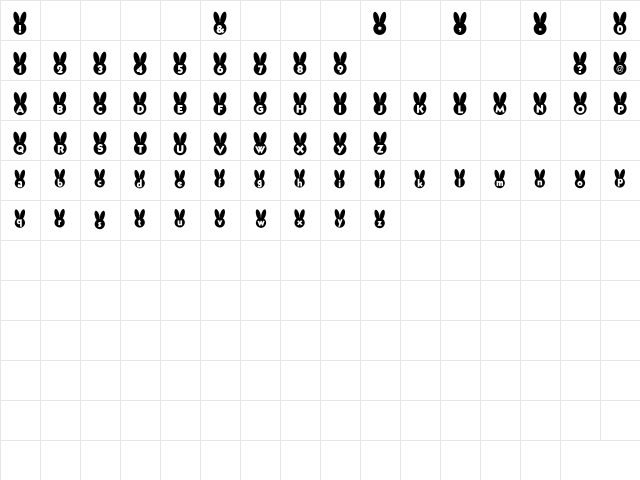
Michousa1 Regular
Design Context for Michousa1 Typeface
Michousa1 is a composed and adaptable typeface that performs quietly and consistently across a wide range of design contexts.